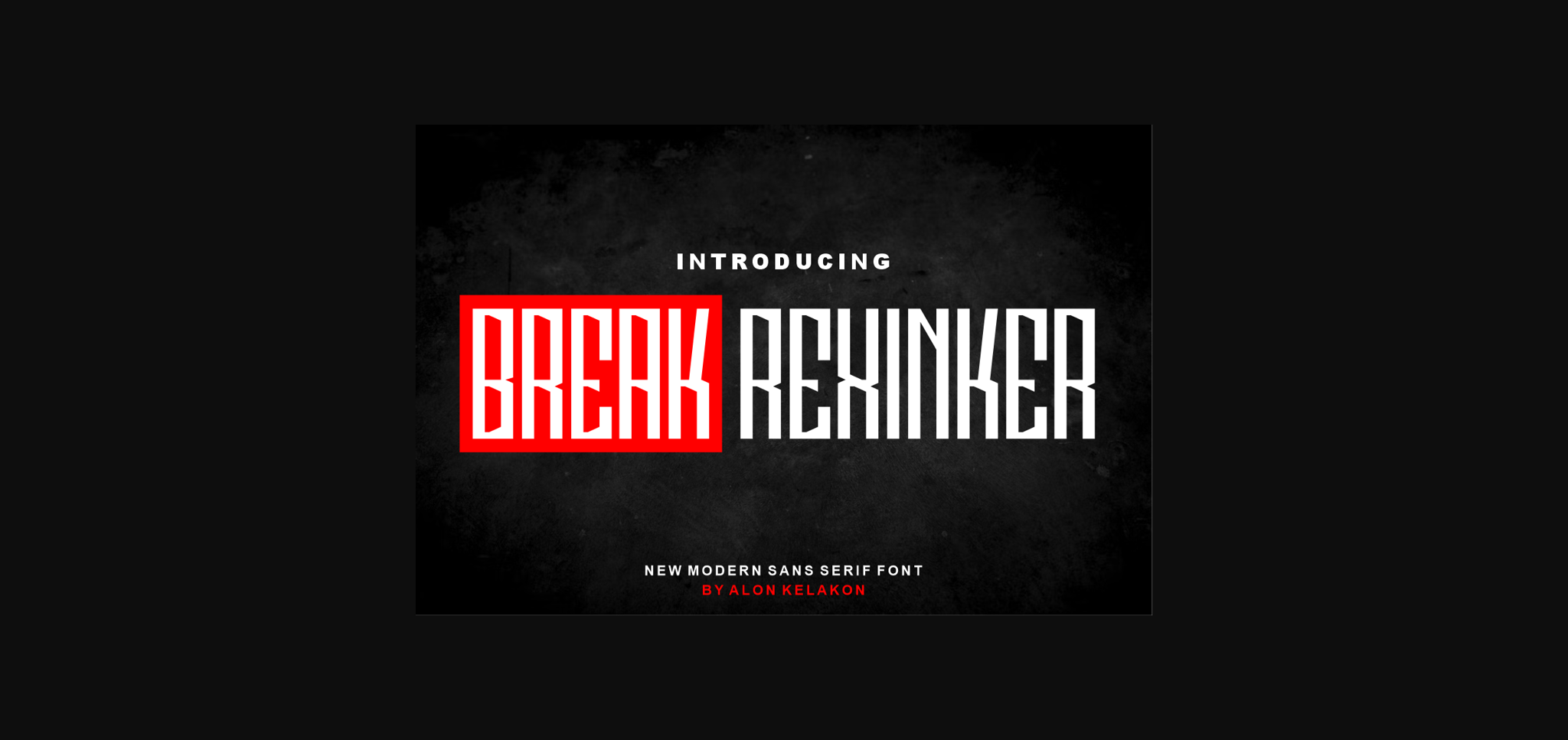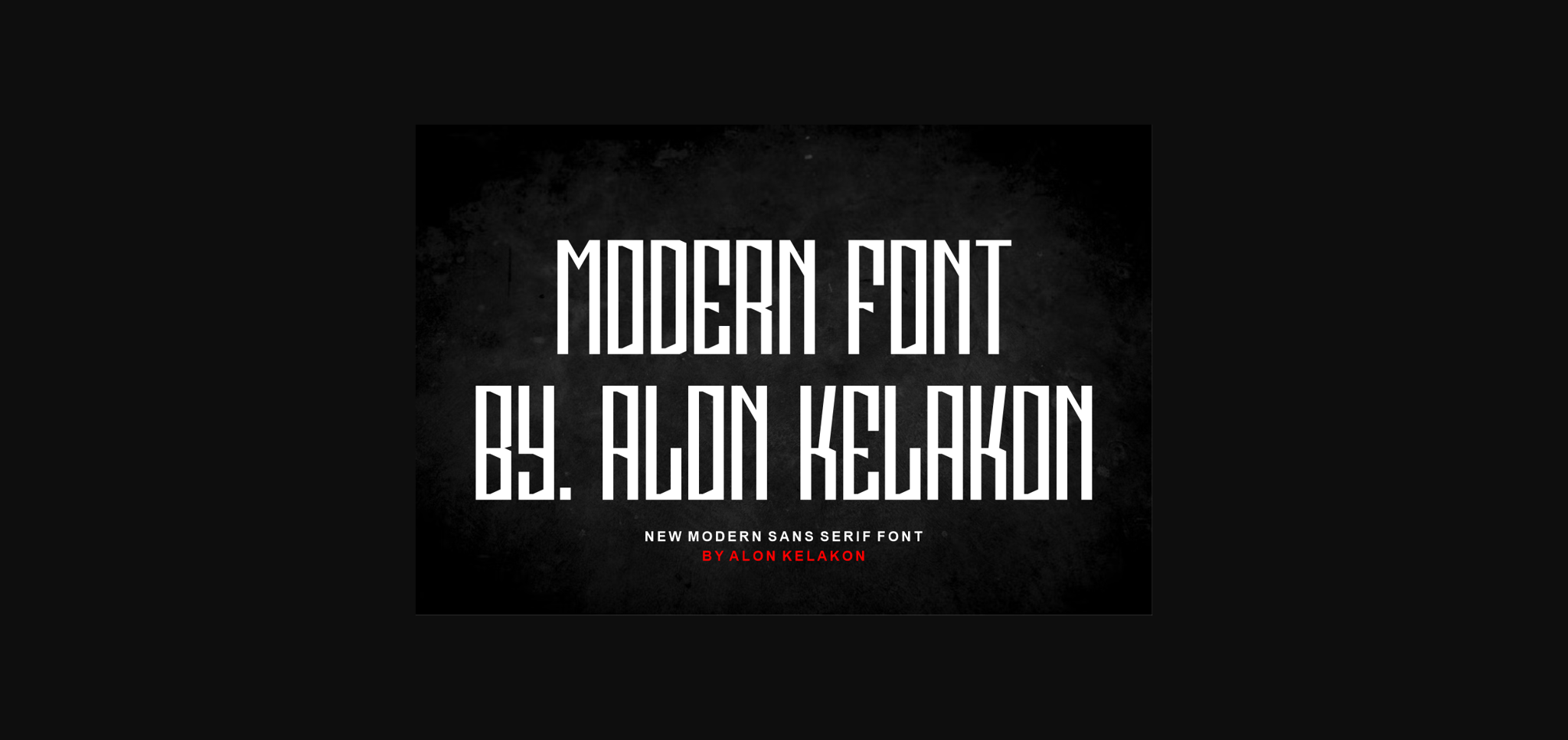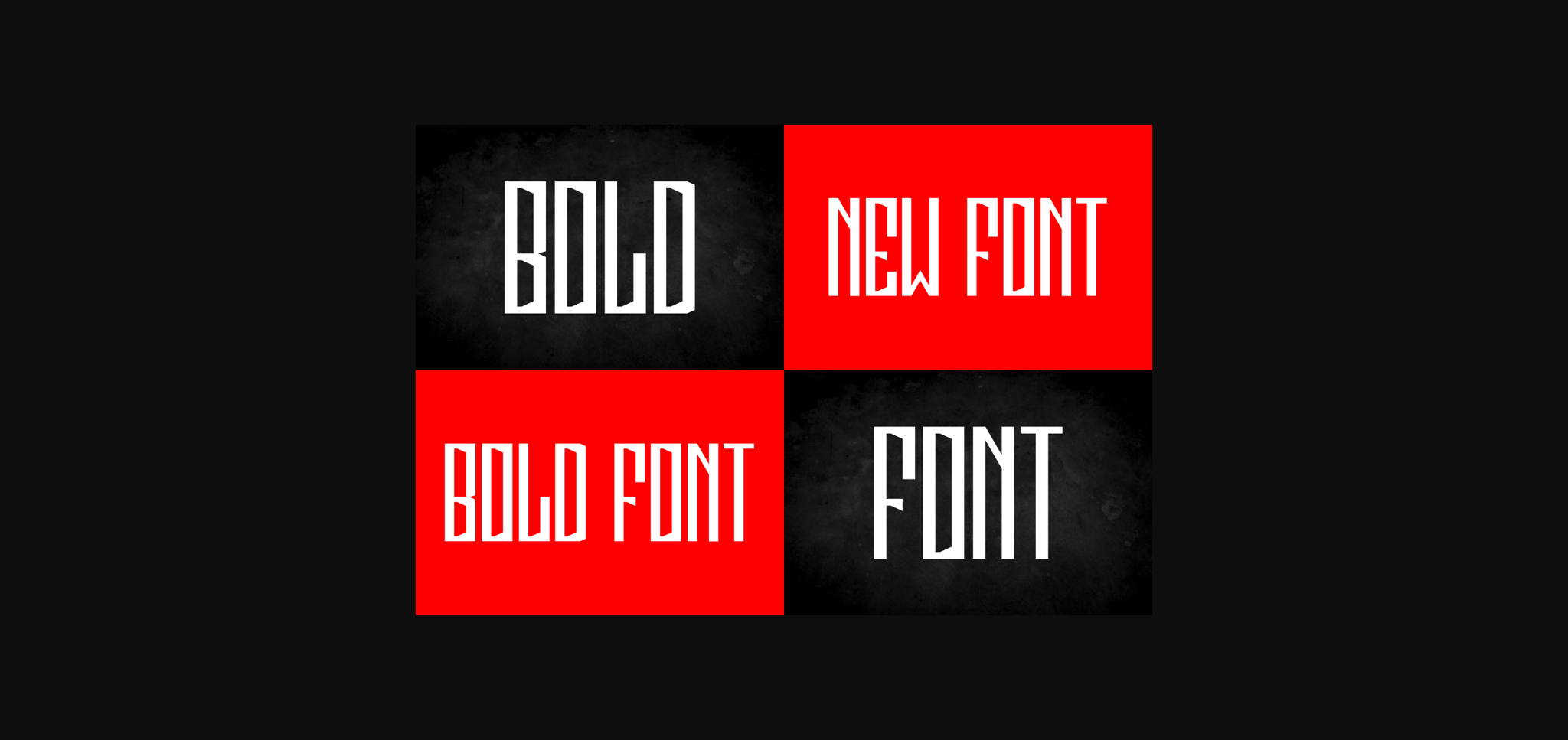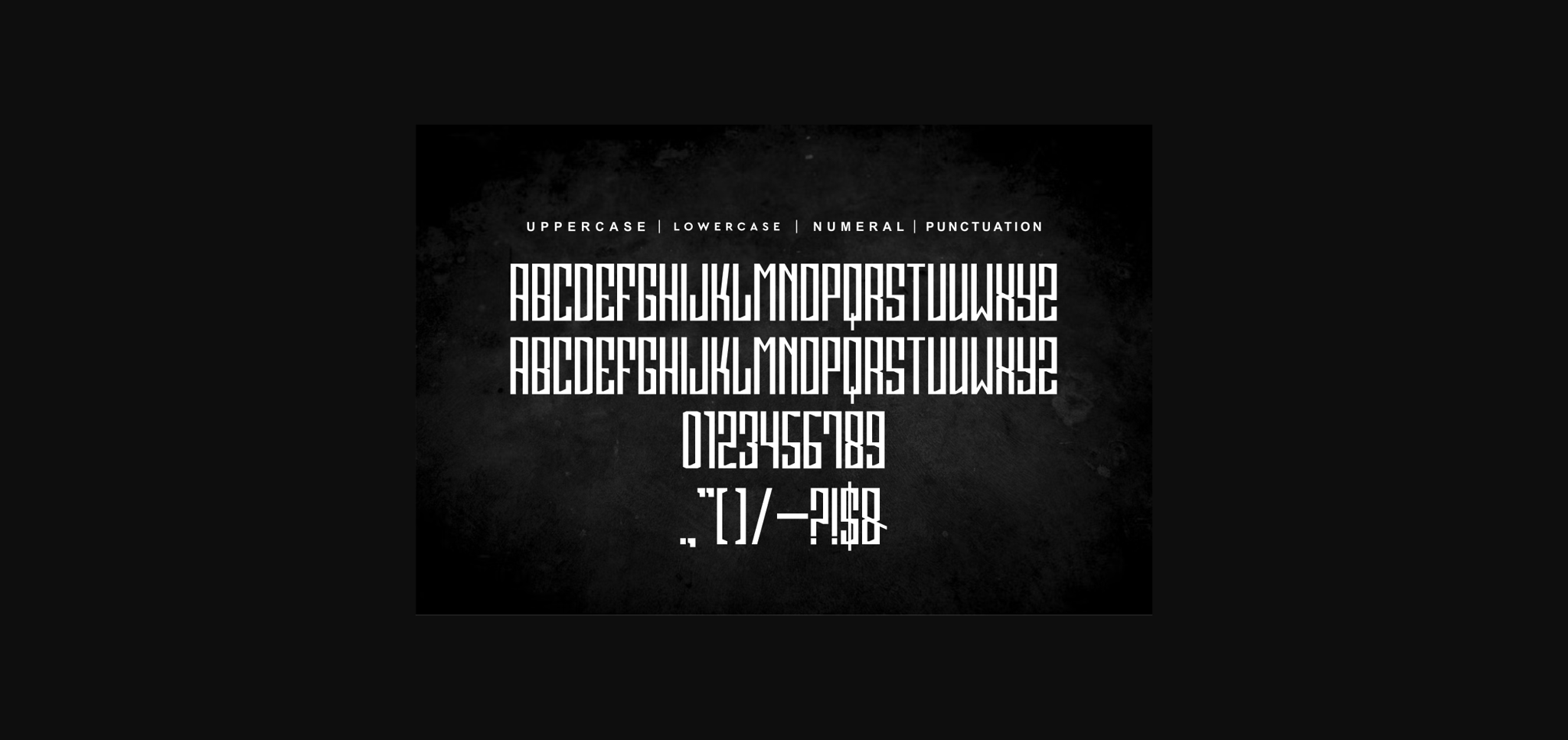
Break Rexinker Font
About Break Rexinker Font
Break Rexinker is a cool, thin-lettered sans serif font. Incredibly versatile, this font will be suitable for a wide spectrum of applications.